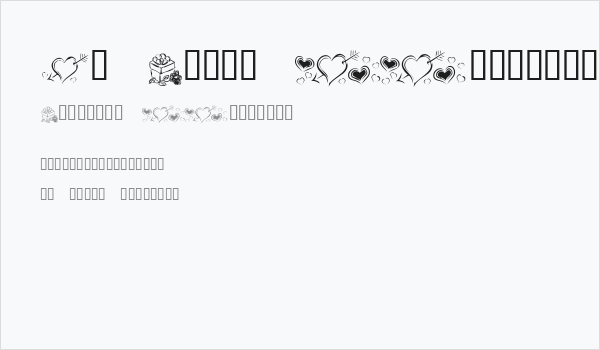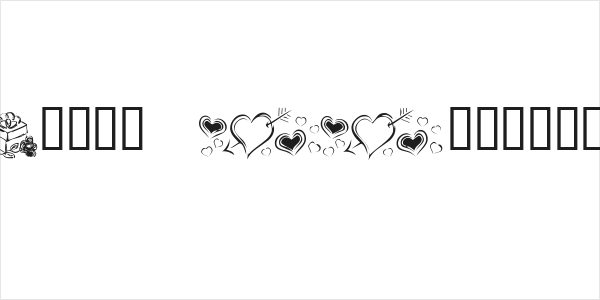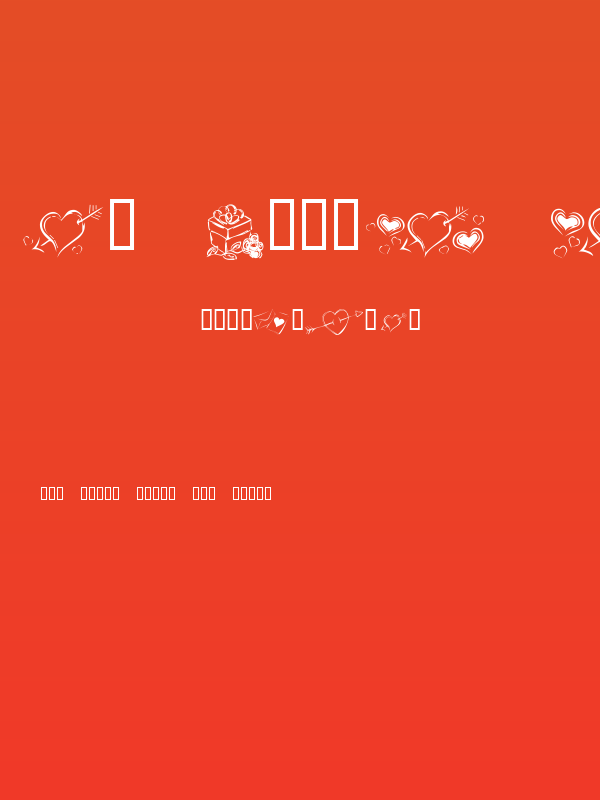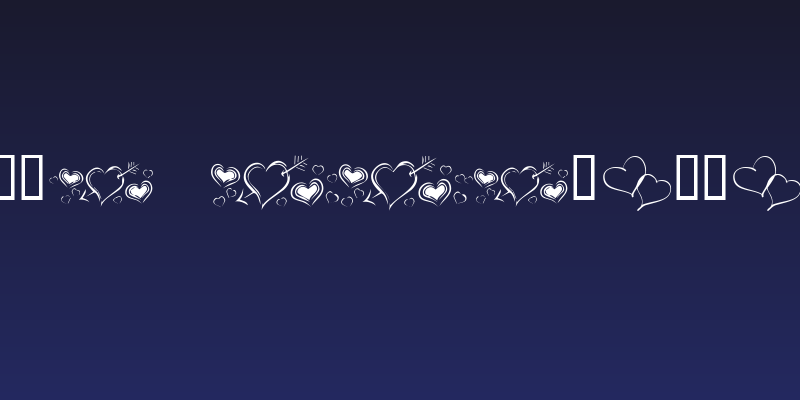
KR Cuori Divertenti 7 Font
KR Cuori Divertenti 7 Description
This font is a decorative and playful collection of heart-themed illustrations. Each character is represented by a unique heart design, incorporating various elements such as arrows, envelopes, and floral motifs. The style is whimsical and charming, making it ideal for projects that require a touch of romance or fun. The characters are not traditional alphanumeric symbols but rather a series of creative heart illustrations, each with its own distinct personality. This font is perfect for adding a decorative element to designs, especially those related to love, Valentine's Day, or any theme that benefits from a playful and affectionate aesthetic.
| Use Case | Logos, Decorative elements |
| Proposed Projects | Ideal for Valentine's Day cards, wedding invitations, romantic event posters, and playful graphic design projects. |